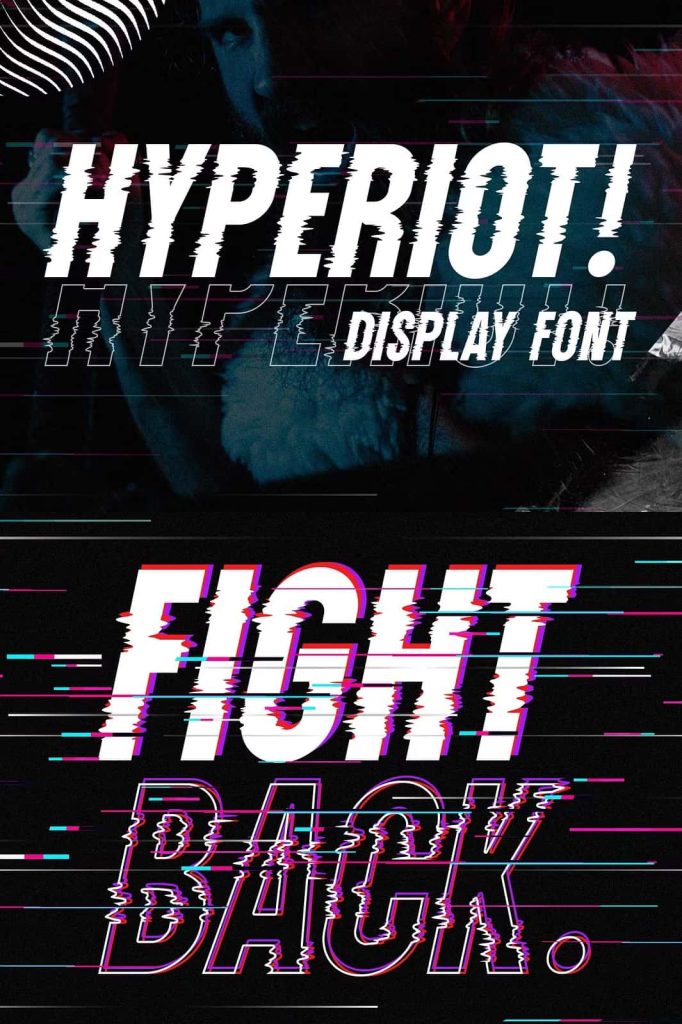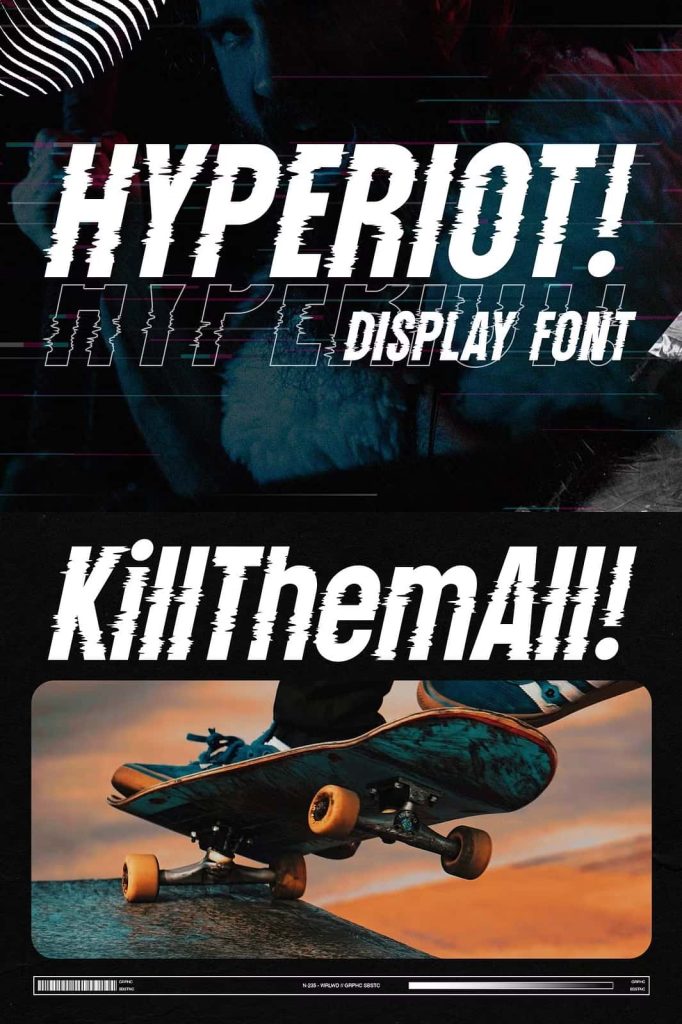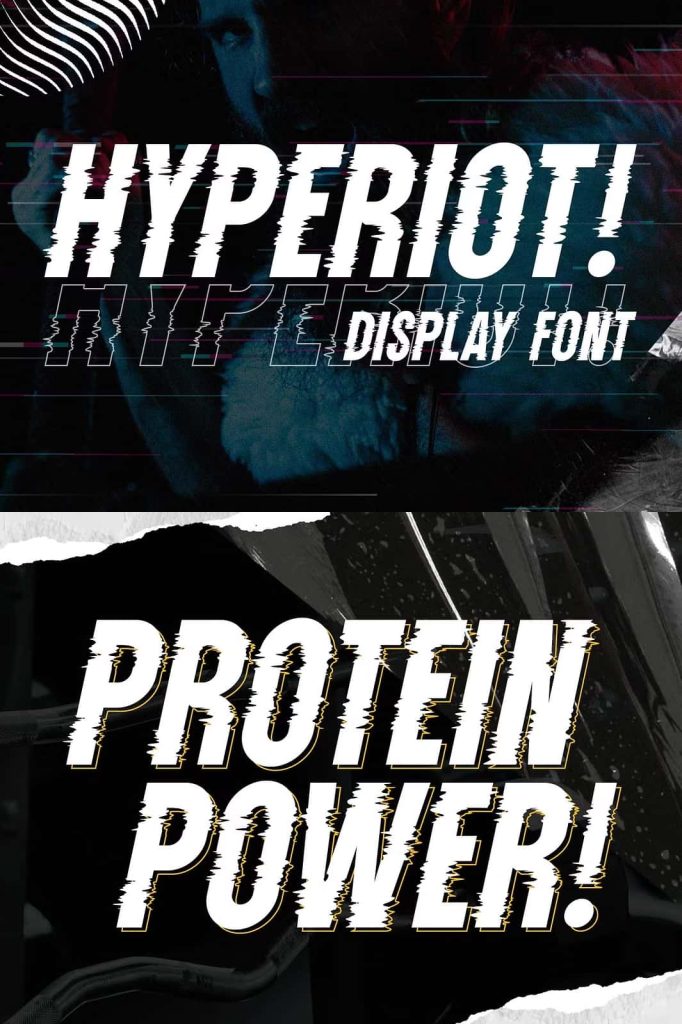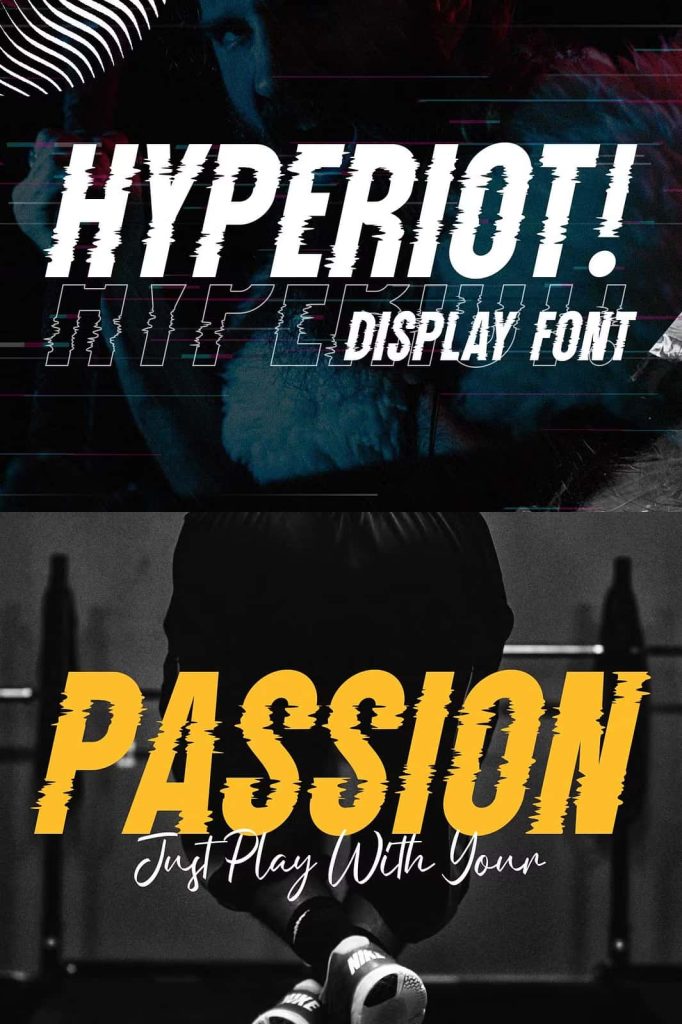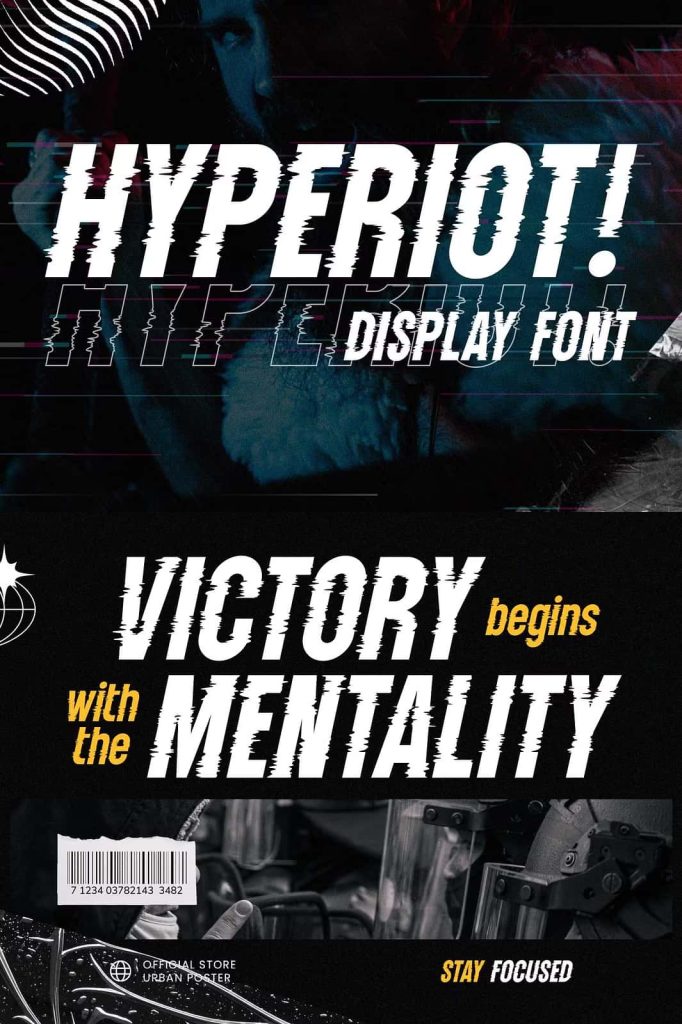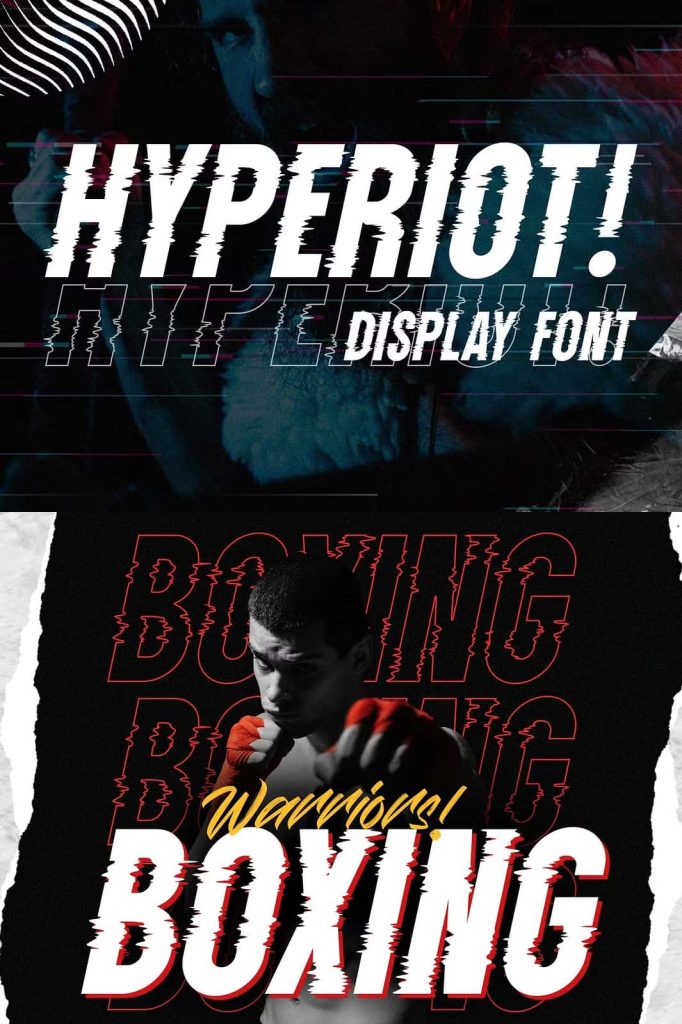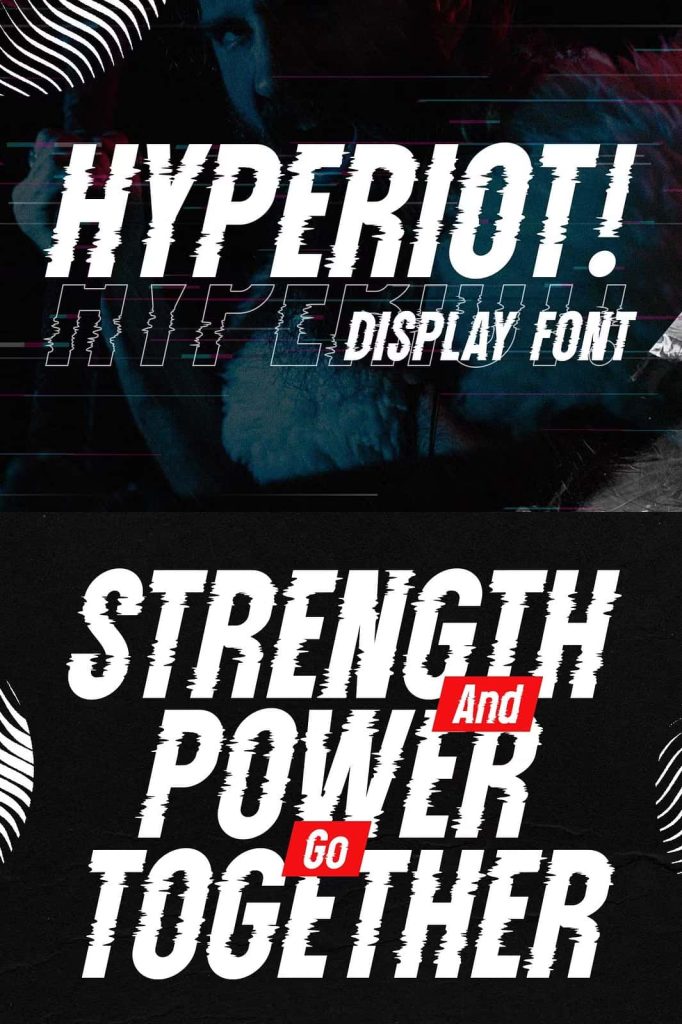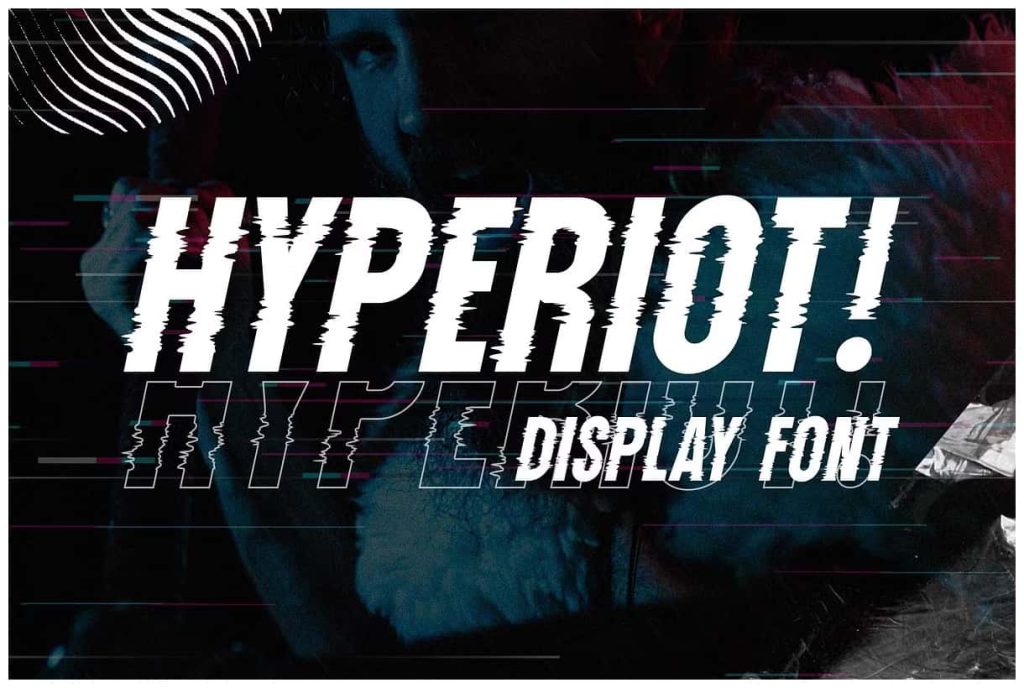
Hyperiot – Glitch StyleleastedFebruary 8, 2025Fonts Introducing Hyperiot, an experimental condensed font that draws inspiration from brutalism and glitch styles. Download